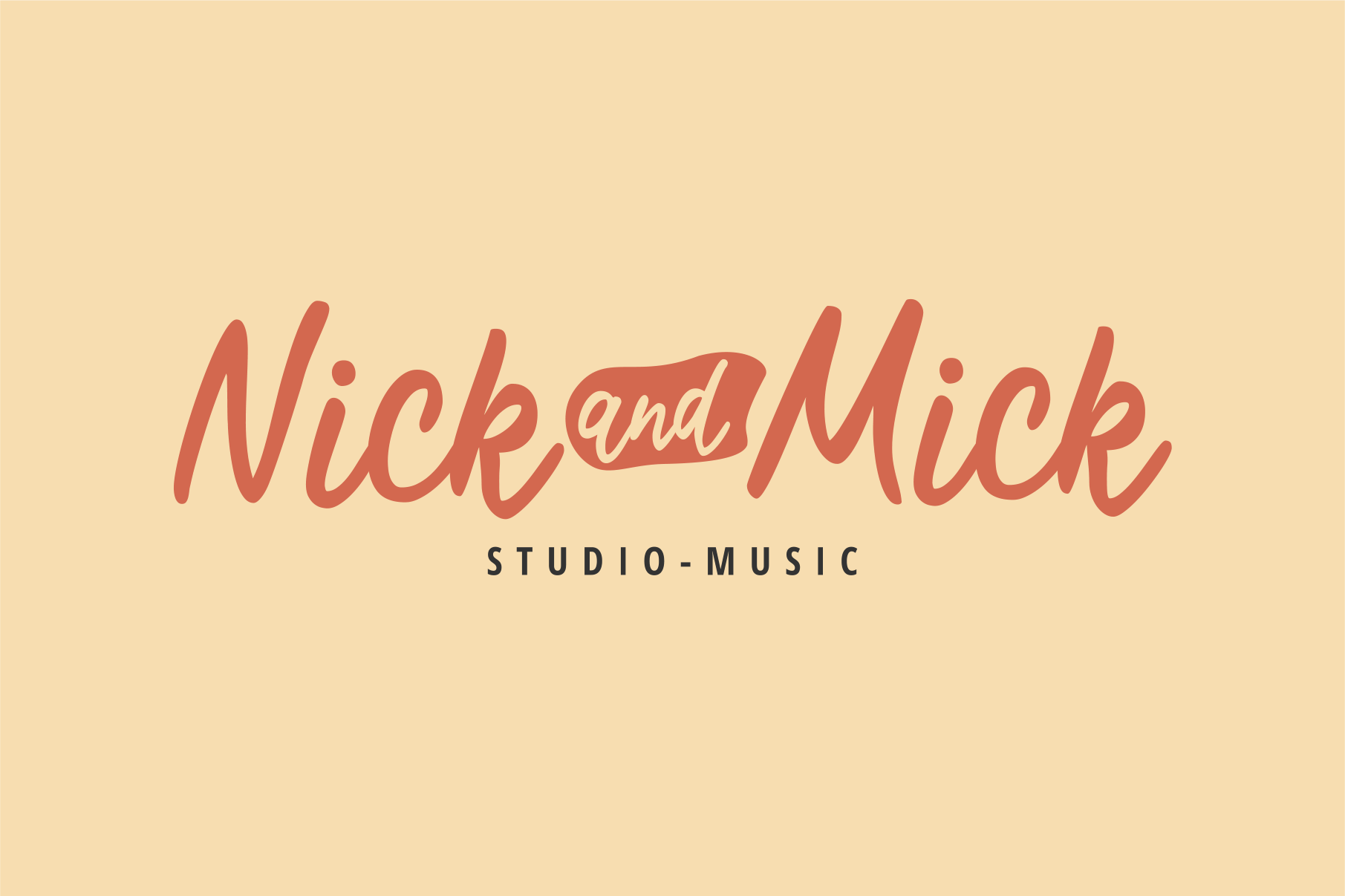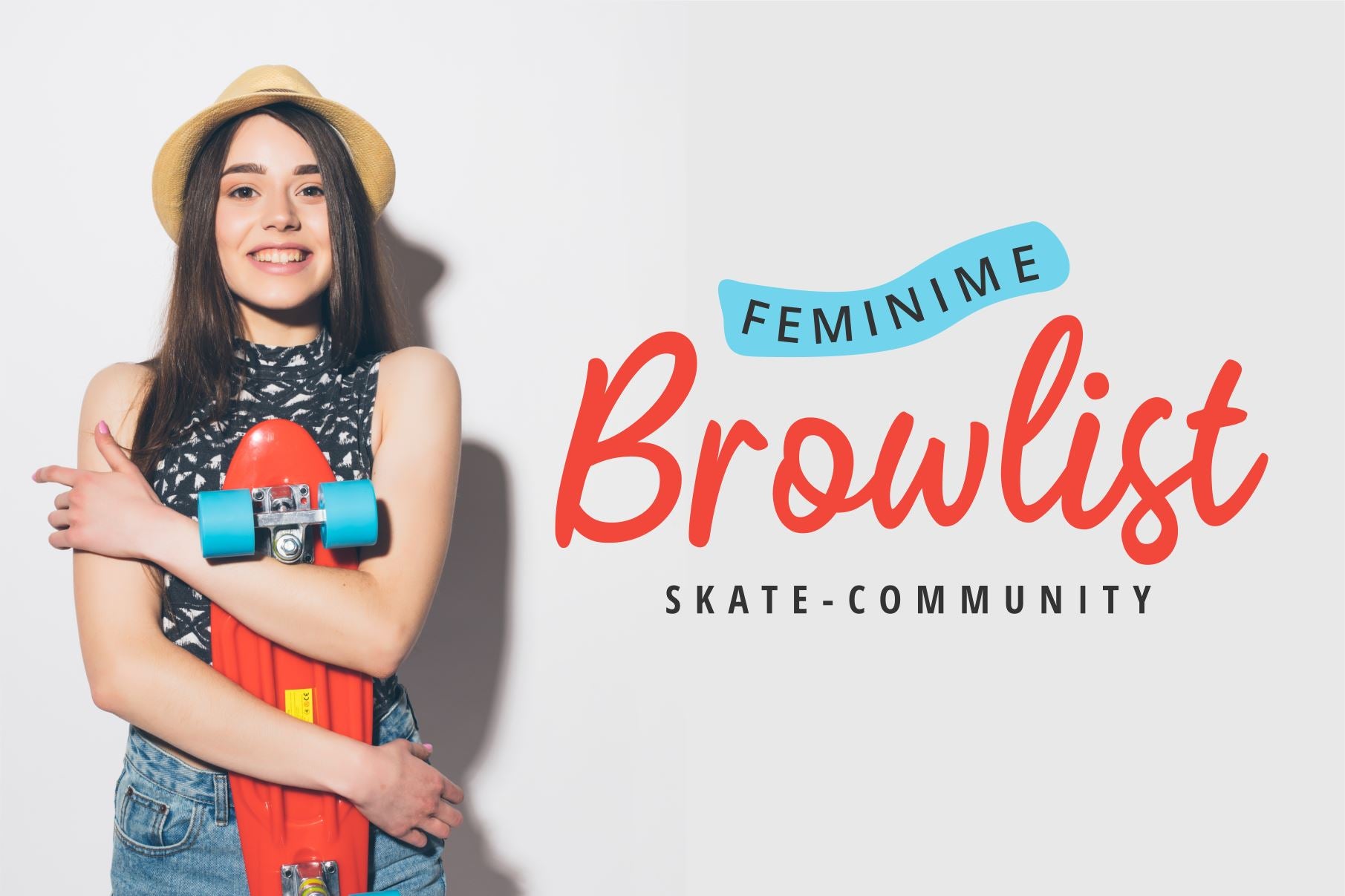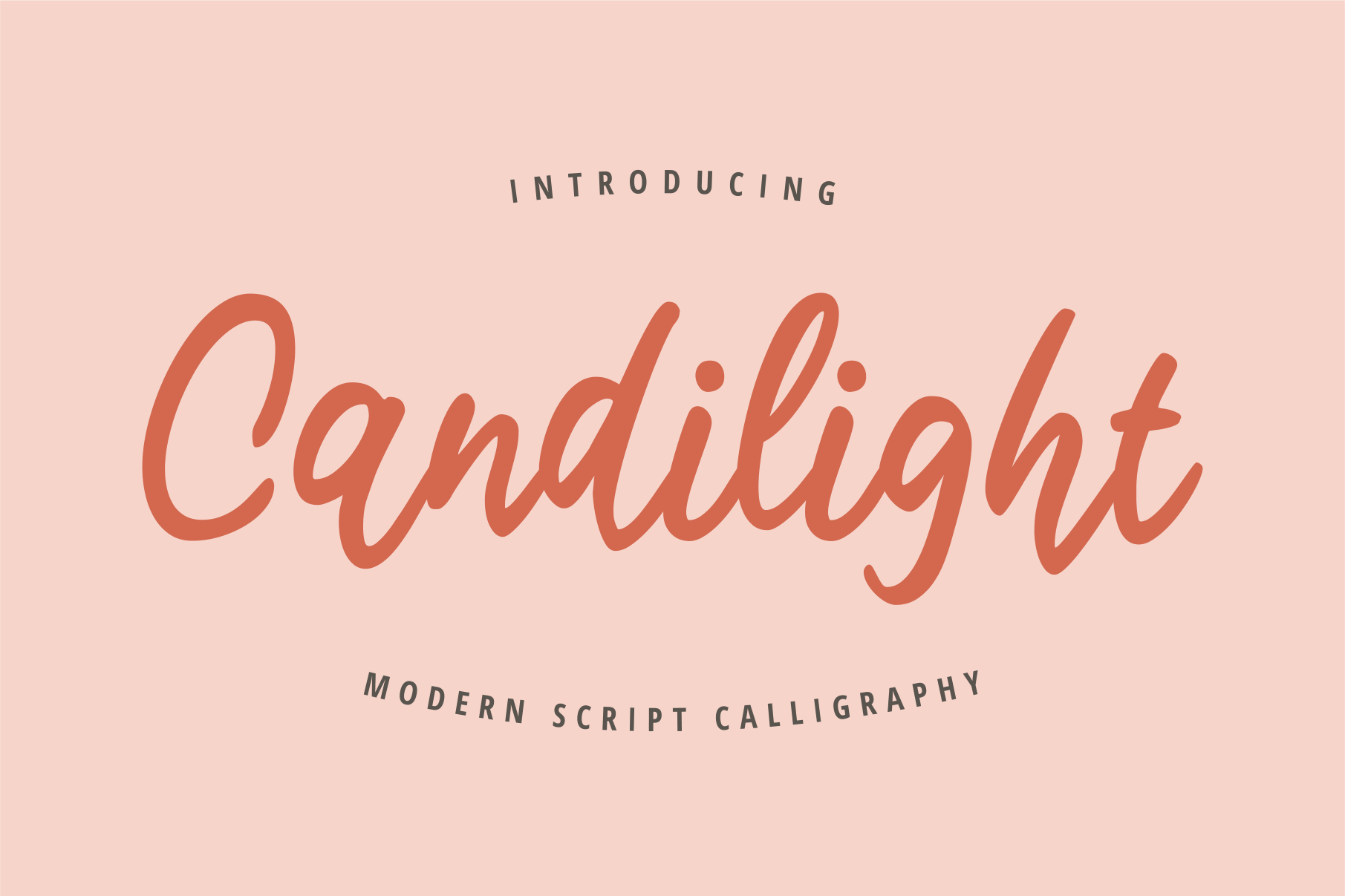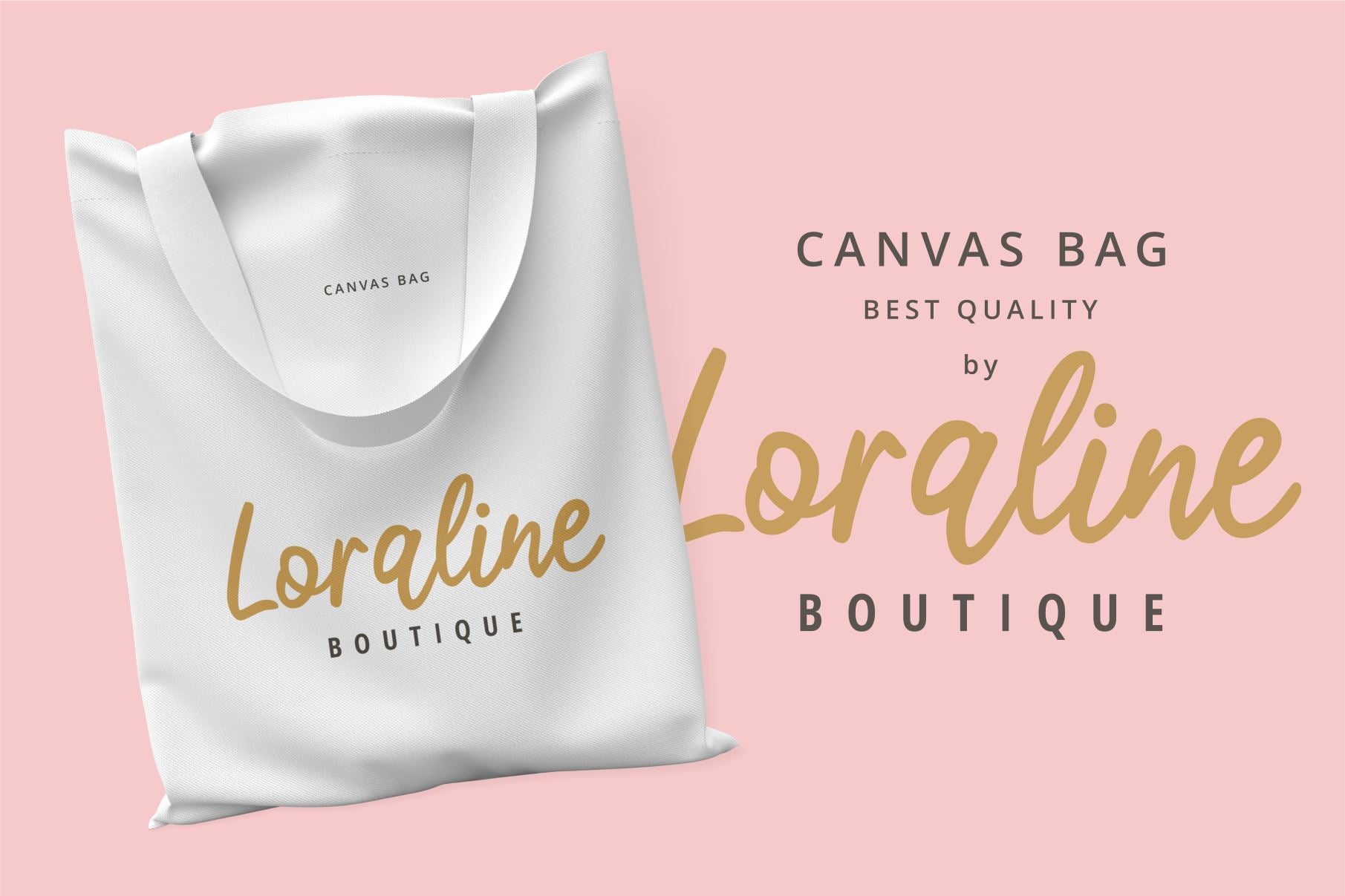
Candilight
About Candilight
Candilight is a brushed, natural and authentic handwritten font. It has a unique, simple and catchy vibe and it is suitable for design projects such as logos, branding, invitations, stationary art, social media posts, and much more!